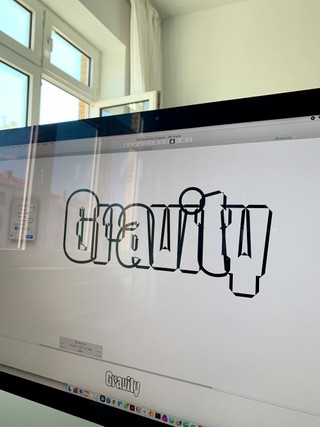
One of the next to jump off the cliff is ABC Gravity, designed by Rob Janes. We’ve been working on this typeface very steadily over the past months and wanted to share it with you first.
Stylistically, Gravity shares a community garden with Compacta, Information, and dare we say, Impact. Our dream was to synthesize the confident flavors of heavy display grotesks from the 60s and 70s, and translate them into extreme widths, but with a more relaxed tone. Drawing only in Black weight helped us to focus for now, but more weights still might come.
Star characters!
The curved Y and y are close to our hearts, and pair well with obvious stand outs like G, a, and R. The industrial faucet-like r, the spiky diagonals of the Q, K, and k, and the block-nosed 1 are other important ingredients I’d mention in an elevator pitch.
Additional characters!!
Some boomers say that adding a bunch of alternative glyphs to a typeface is a sign of poor character. But I don’t think that’s true today. With Gravity, we absolutely want to embrace the extra spice that “unnecessary” (😤) variations like an extra /one, or additional /comma or even the alternate /paragraph (we didn’t do that) might add to the typographic atmosphere.
Also, settings!
We implemented features that allow you to arrange and shift the characters: you can make them jump over the baseline, or hang from the top. This way, you can set multiple rows of text really tightly, with no air in-between, or you can make a bunch of dry text look ridiculously interesting. You unchain the glyphs from their defined position: work with and not against the typeface.
Variable width-control & style overview
All of Gravity is packaged in one Variable Font file. That means the output can be modulated seamlessly from XXXX Compressed to Wide. As a fall back, we also defined 12 font styles:
• ABC Gravity XXXX Compressed
• ABC Gravity XXX Compressed
• ABC Gravity XX Compressed
• ABC Gravity X Compressed
• ABC Gravity Compressed
• ABC Gravity Extra Condensed
• ABC Gravity Condensed
• ABC Gravity SemiCondensed
• ABC Gravity Normal
• ABC Gravity Extended
• ABC Gravity Expanded
• ABC Gravity Wide
A word on the author
Rob joined the Dinamo team in Berlin three years ago and quickly took control over all tech and production work (lucky for us), as well as the chess board (humiliating for me). Truly committed, Rob moved here all the way from Melbourne and even—if only very, very briefly—attended German classes. Anyway, Gravity is his first Dinamo release (we wouldn’t have known where to begin). We’re terribly excited.